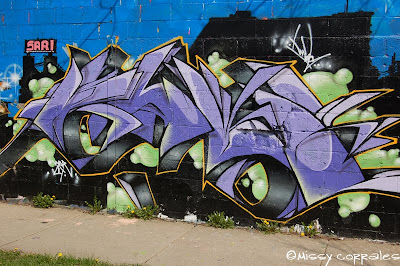
Chicago graffiti as you know has a characteristic that is very special. bomber in the chicago area has a remarkable ability in putting the final touches of artwork they make.
Strong brush strokes and character make Chicago graffiti is considered as one flow that makes the art of graffiti letters became more alive. Moreover, when street art is juxtaposed with graffiti from other areas, it will show a more formidable force!